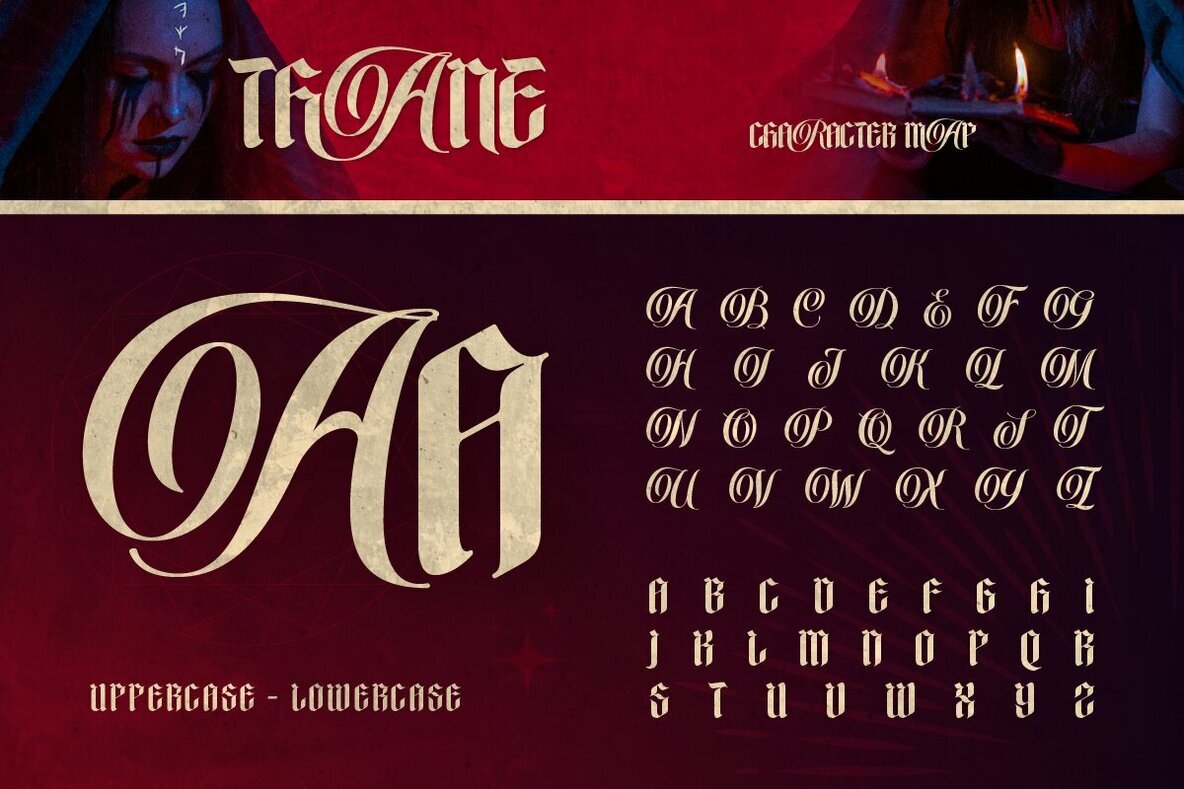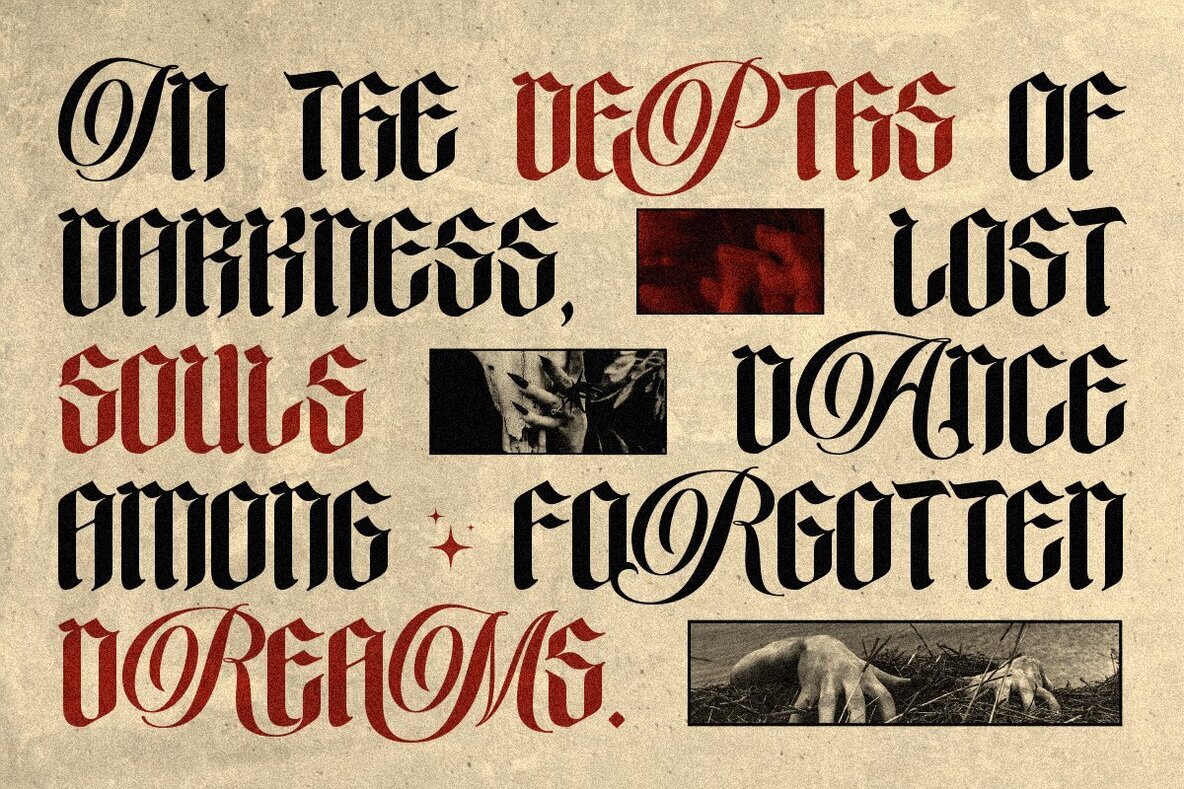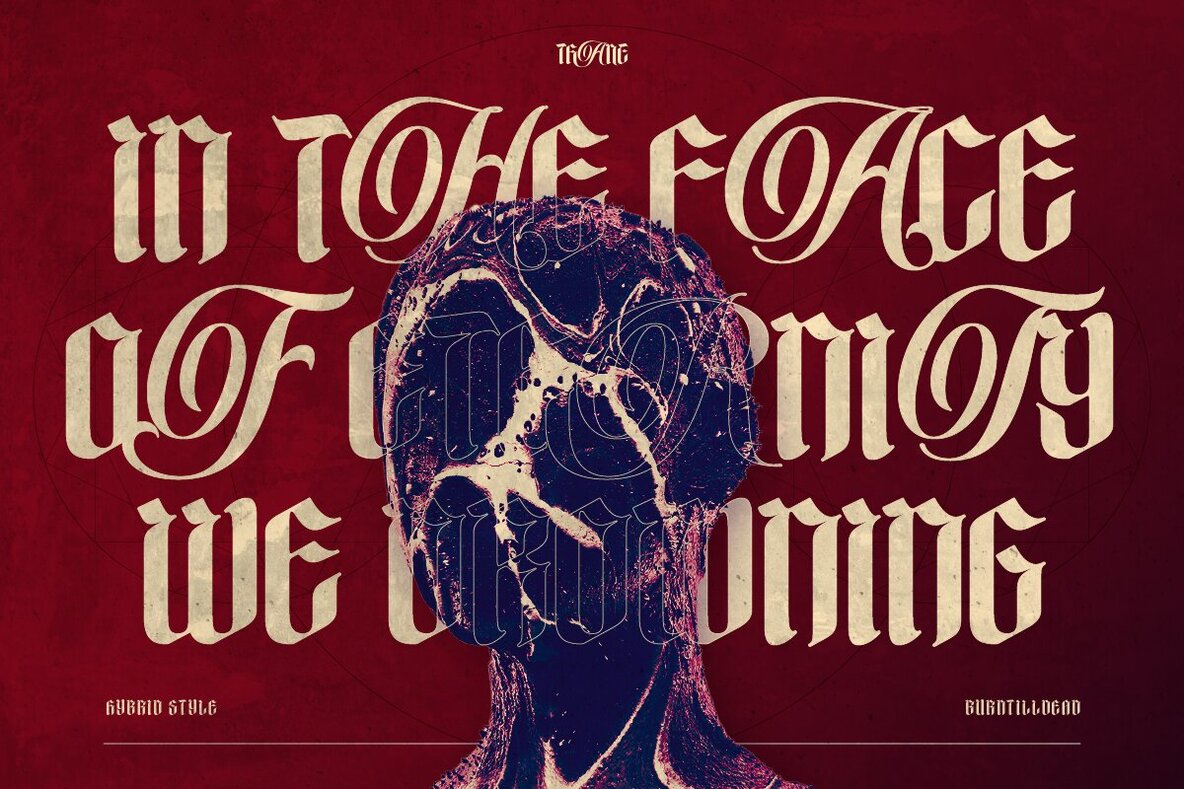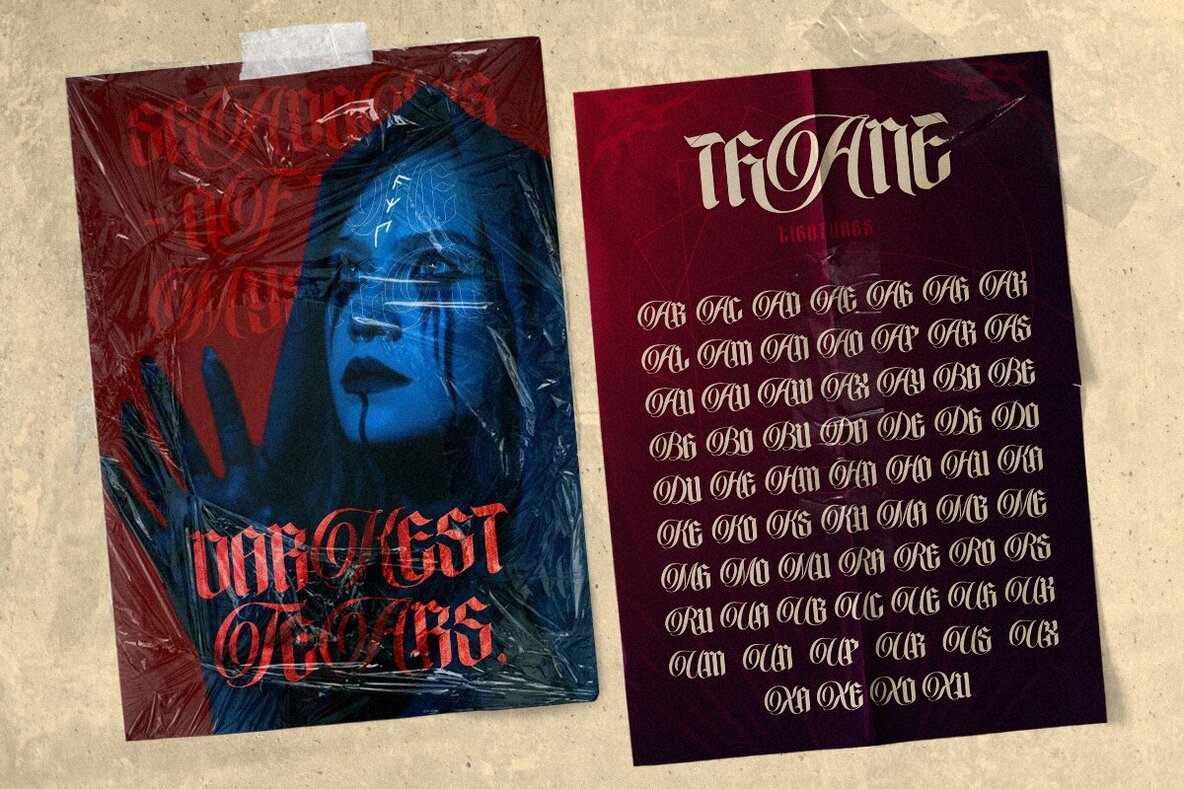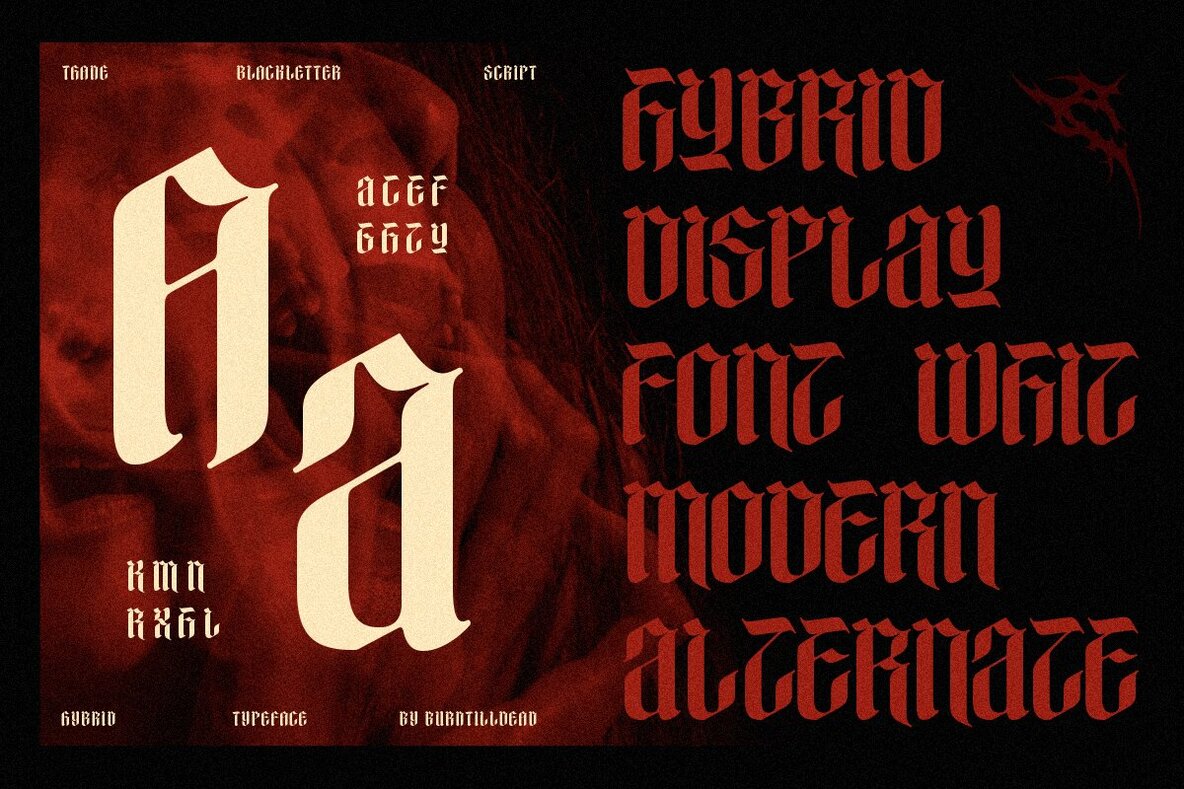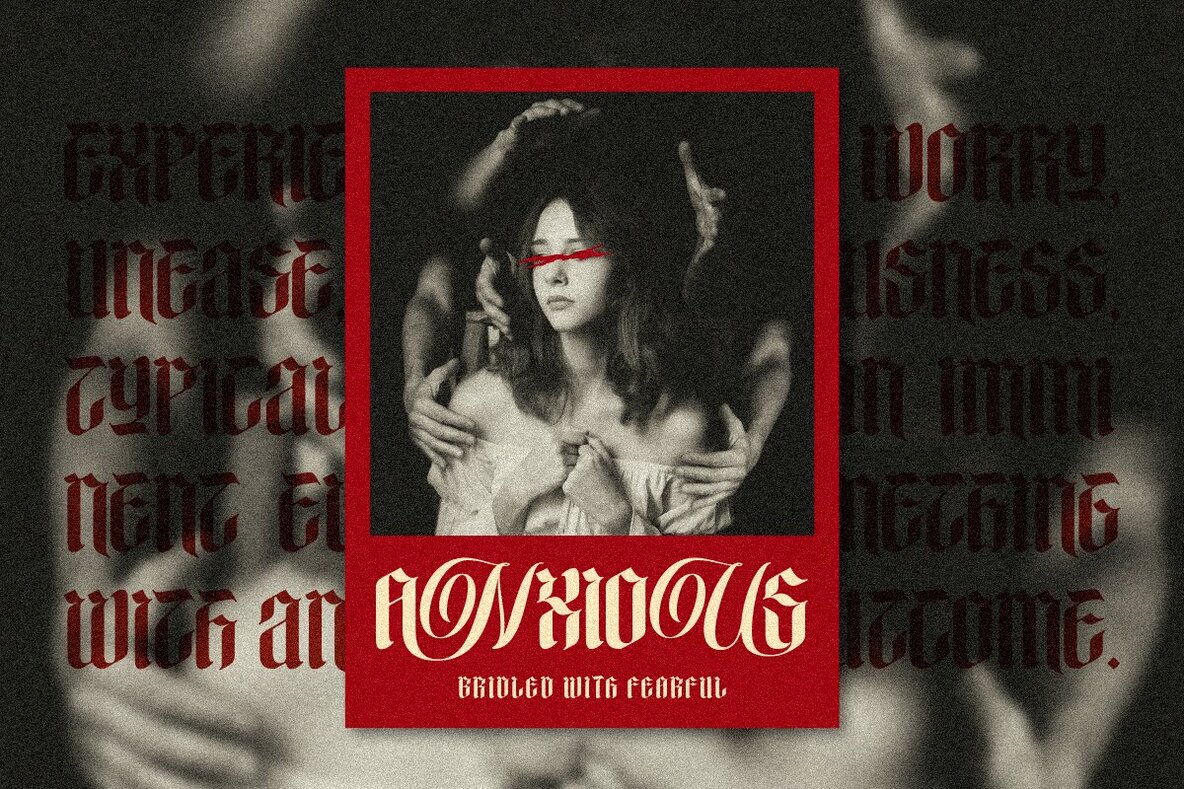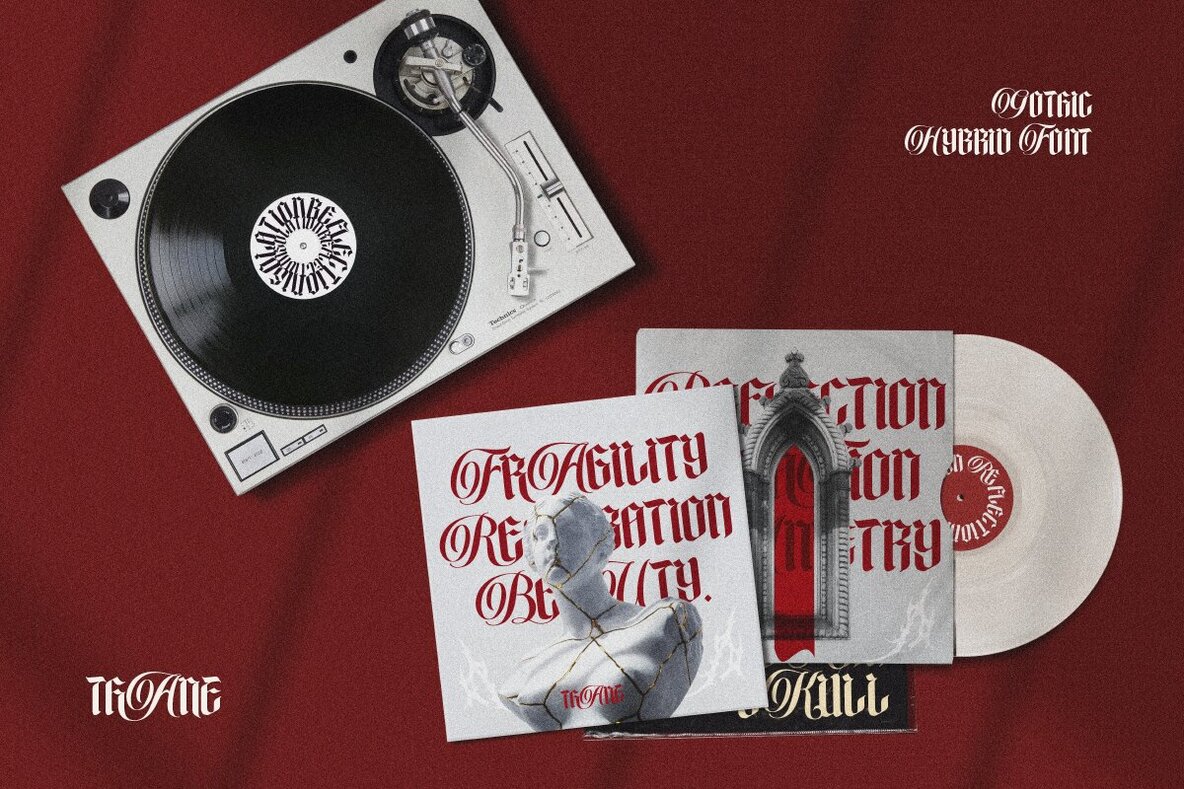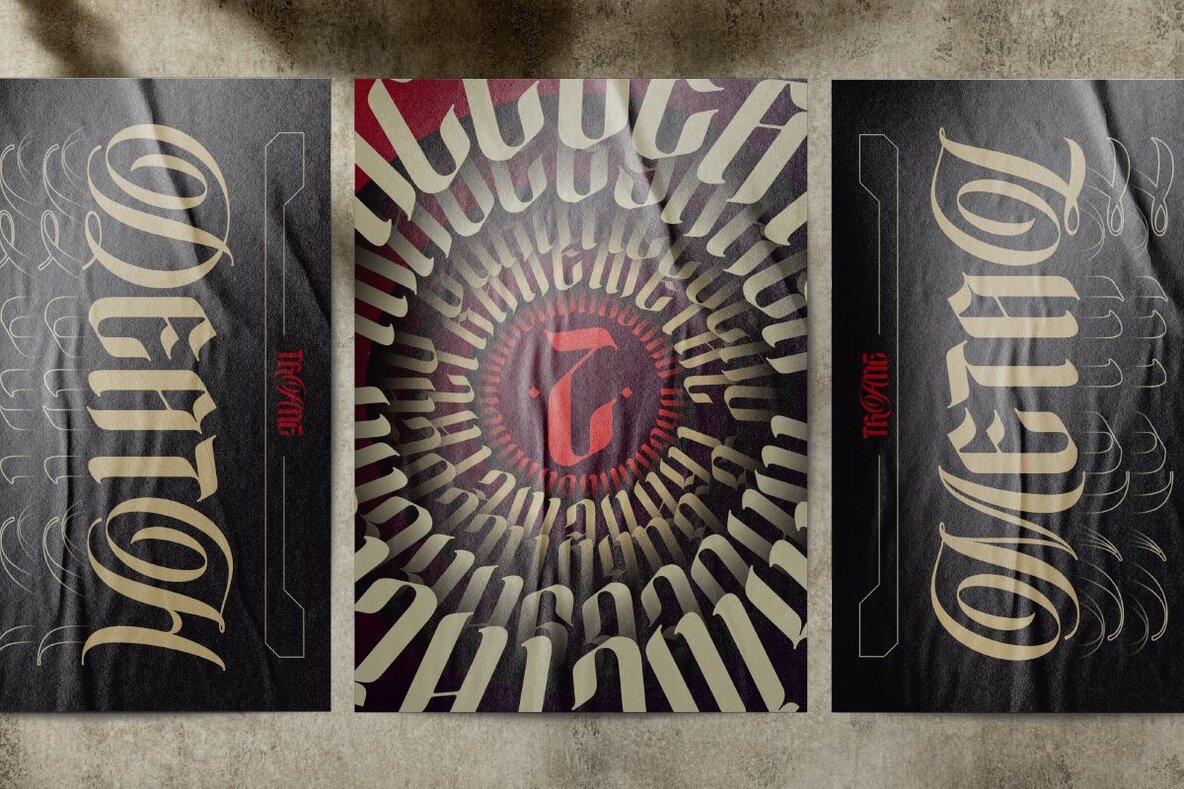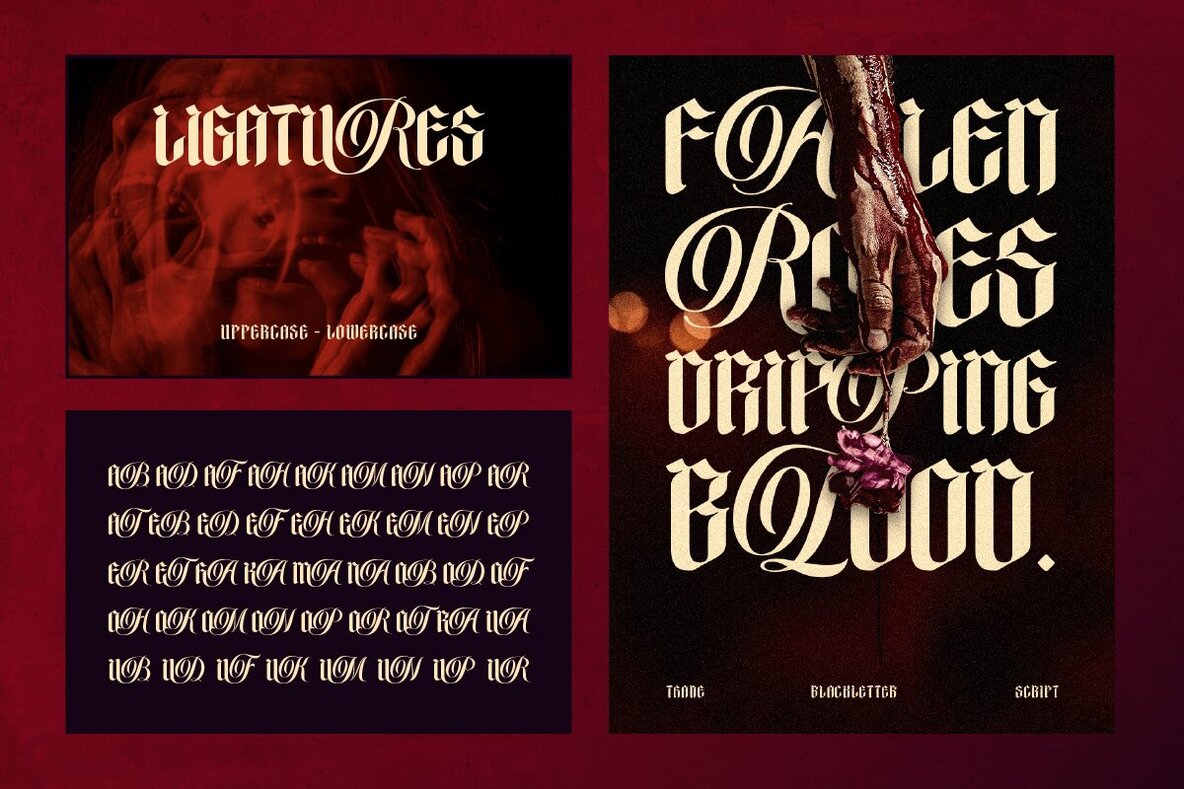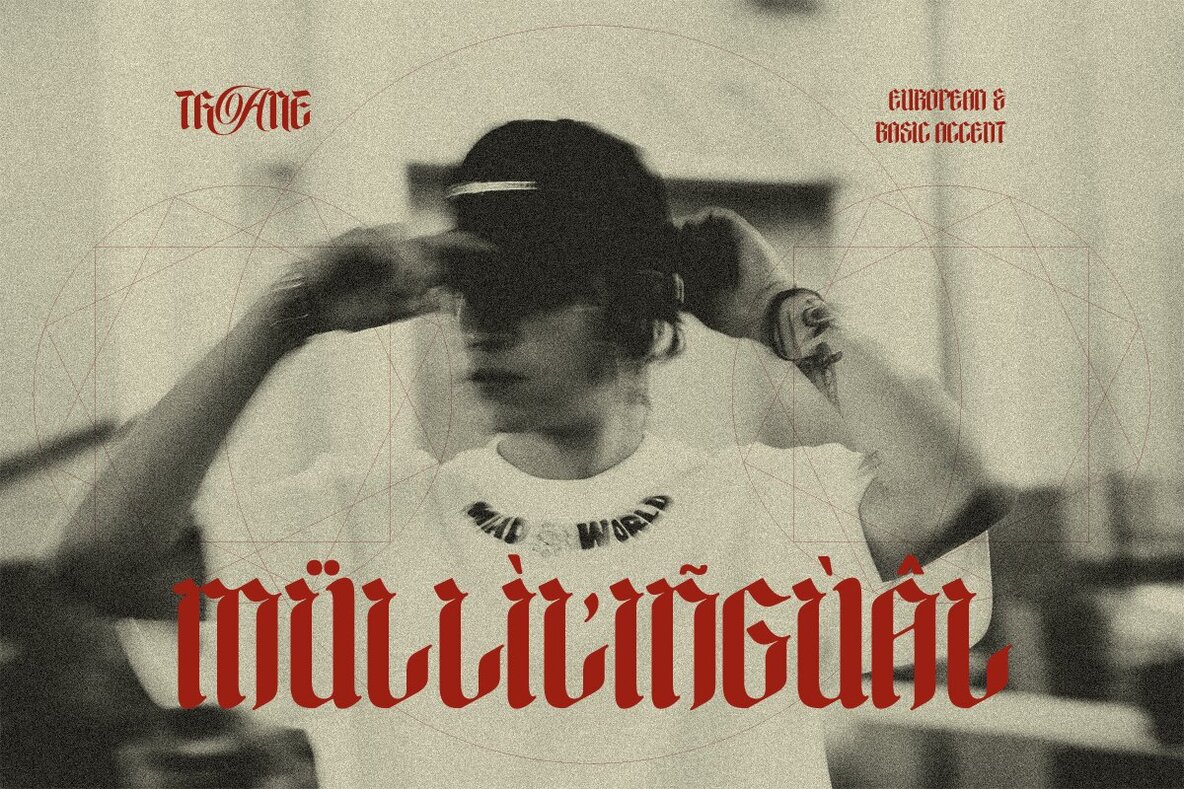
Thane Font
Thane Regular
Introducing a gothic hybrid font that masterfully blends the bold intricacy of blackletter with the elegant fluidity of script. This unique combination results in a typeface that commands attention and exudes a sense of drama and sophistication. Its intricate design is ideal for a variety of projects that require a distinctive edge, such as branding, invitations, streetwear, t-shirt designs, merchandise, posters, and magazines.
The font includes a complete A-Z character set, numerals, and punctuation, alongside ligatures and multilingual support to ensure versatility and adaptability across different language requirements. This makes it a perfect choice for any designer seeking to infuse their work with a bold, sophisticated aesthetic that stands out in any setting.